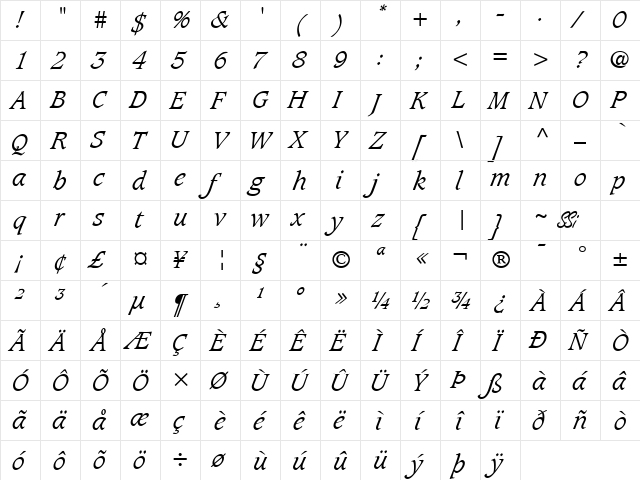
Grammateus Light SSi Light Italic Font Preview
Design Context for Grammateus Light SSi Typeface
Grammateus Light SSi offers clean, dependable letterforms without strong stylistic allegiance, making it a practical choice for designers who need flexibility. The dynamic lean of this cut emphasises speed and emphasis in any layout. Its slender proportions lend an understated elegance to any composition.